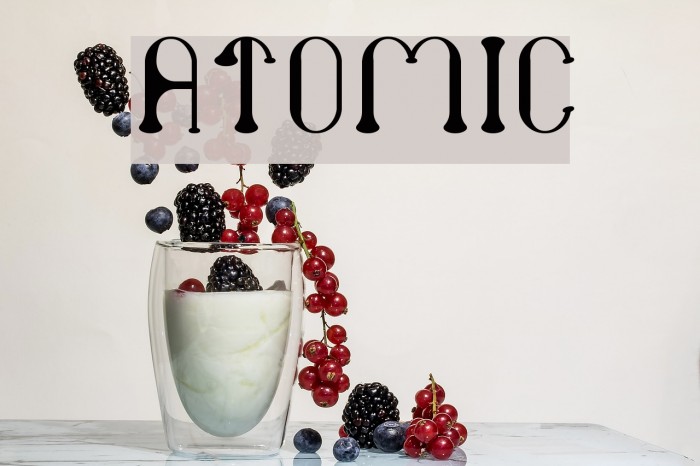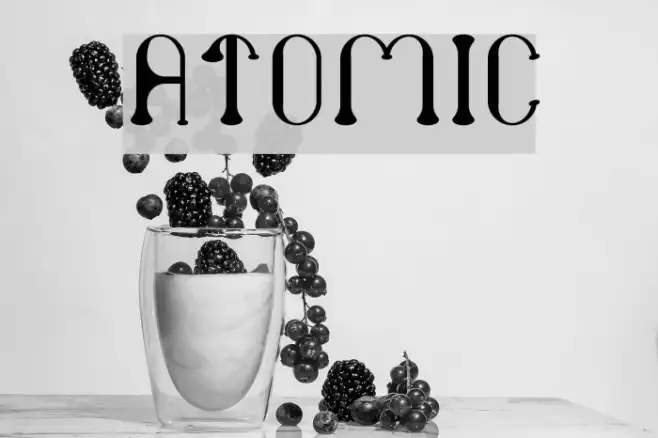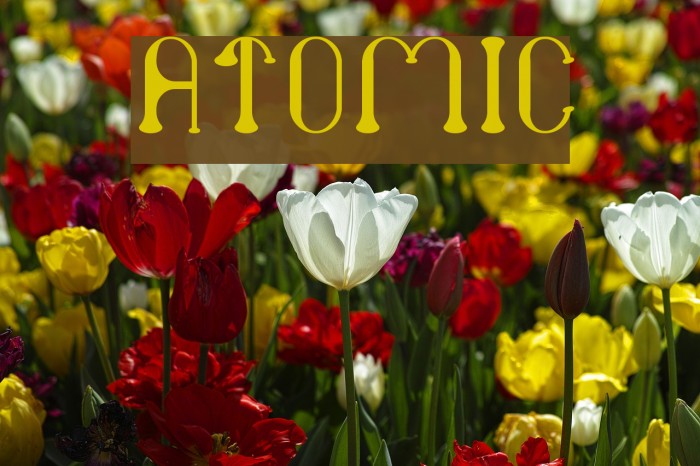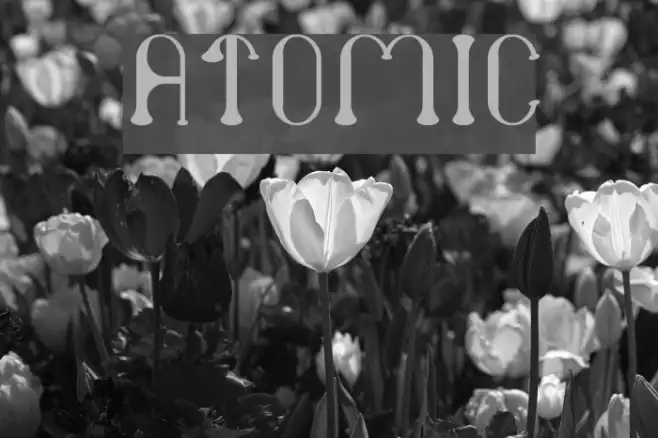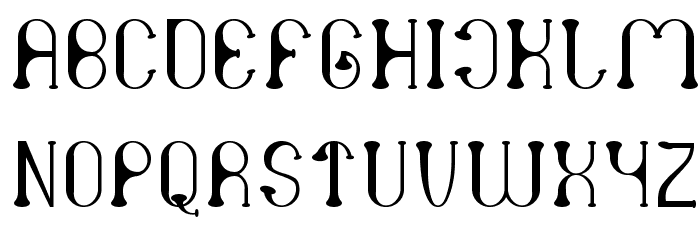
atomic Font
This font features a unique and decorative style with a playful twist on traditional letterforms. Each character is crafted with a blend of bold strokes and intricate details, creating a visually striking appearance. The uppercase letters exhibit a mix of thick and thin lines with unexpected curves and loops, adding a whimsical touch. The overall design is reminiscent of vintage signage, yet it maintains a modern flair. The font's distinctiveness makes it ideal for creative projects that require a standout typeface.
A decorative and whimsical font with bold strokes and intricate details.
• Proposed Projects: Ideal for branding, poster design, album covers, and creative advertising campaigns.
• Category: Decorative/Display
• Contrast: High
• Overall Style: Vintage, Decorative
• Use Case: Headlines, Logos